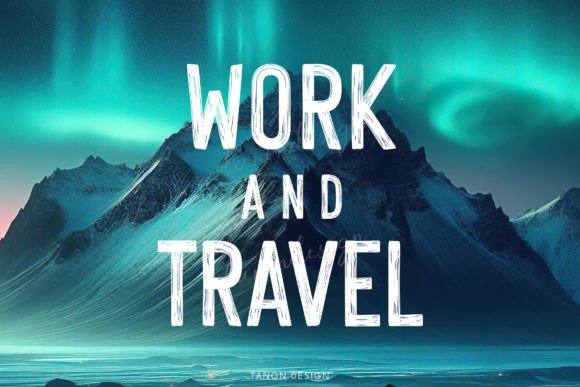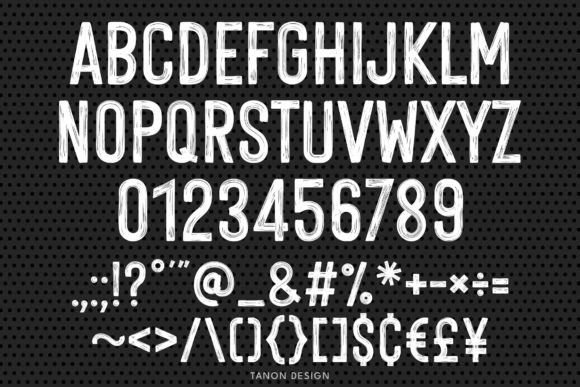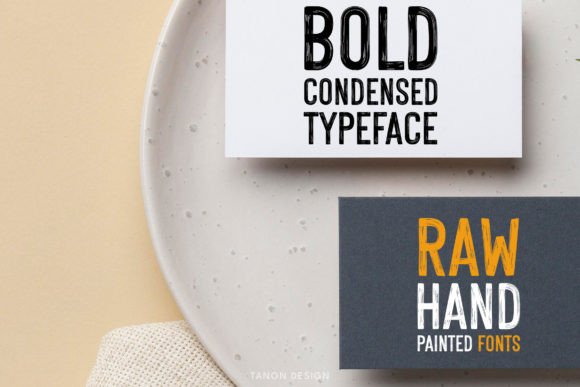
Introduction to Raw Hand Painted Font
Introducing β€œRaw Hand Painted” brush font is a beautiful, bold condensed handwritten brush font.
It will look fantastic on all your project designs including t-shirt designs, mug designs, digital designs, crafts, cards, and any projects .